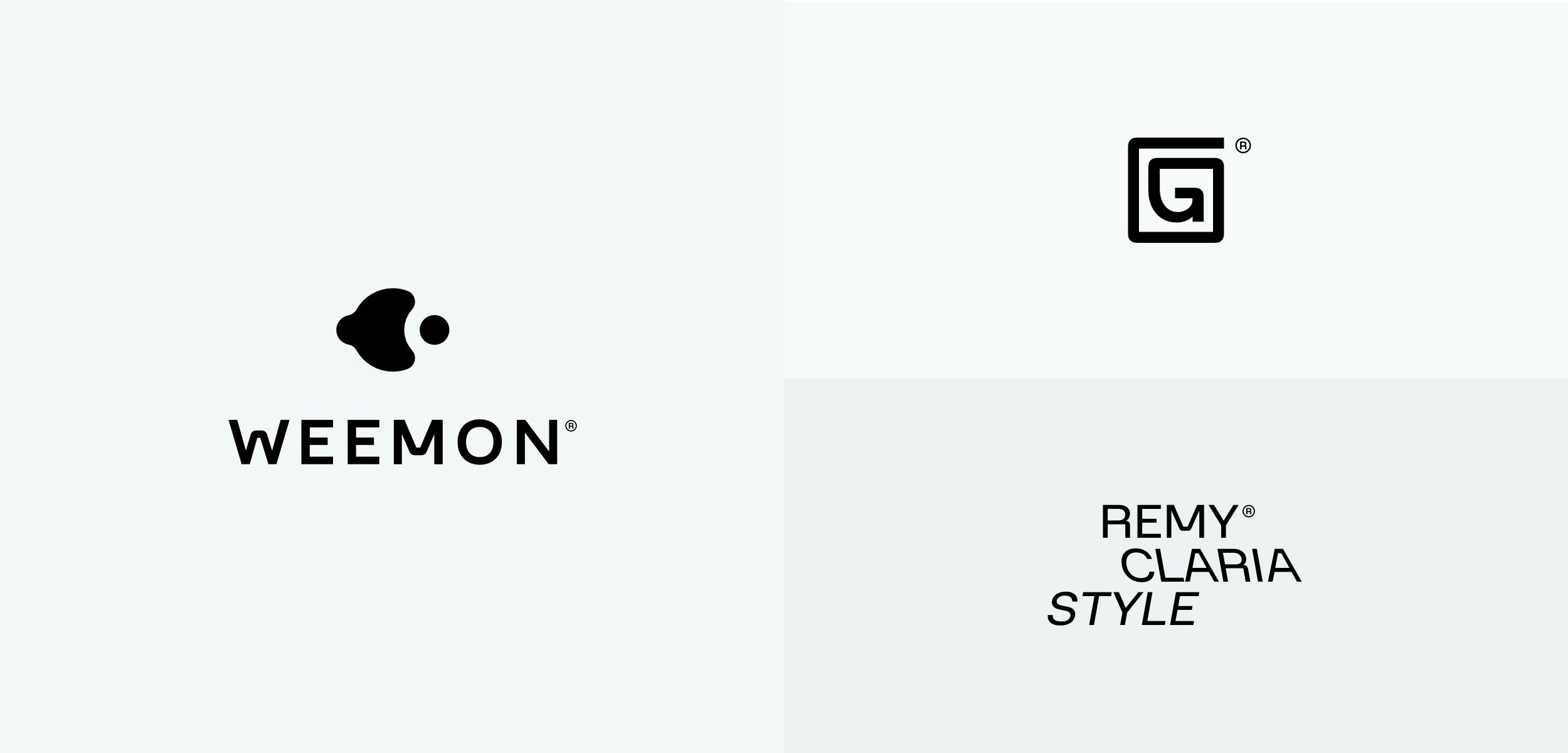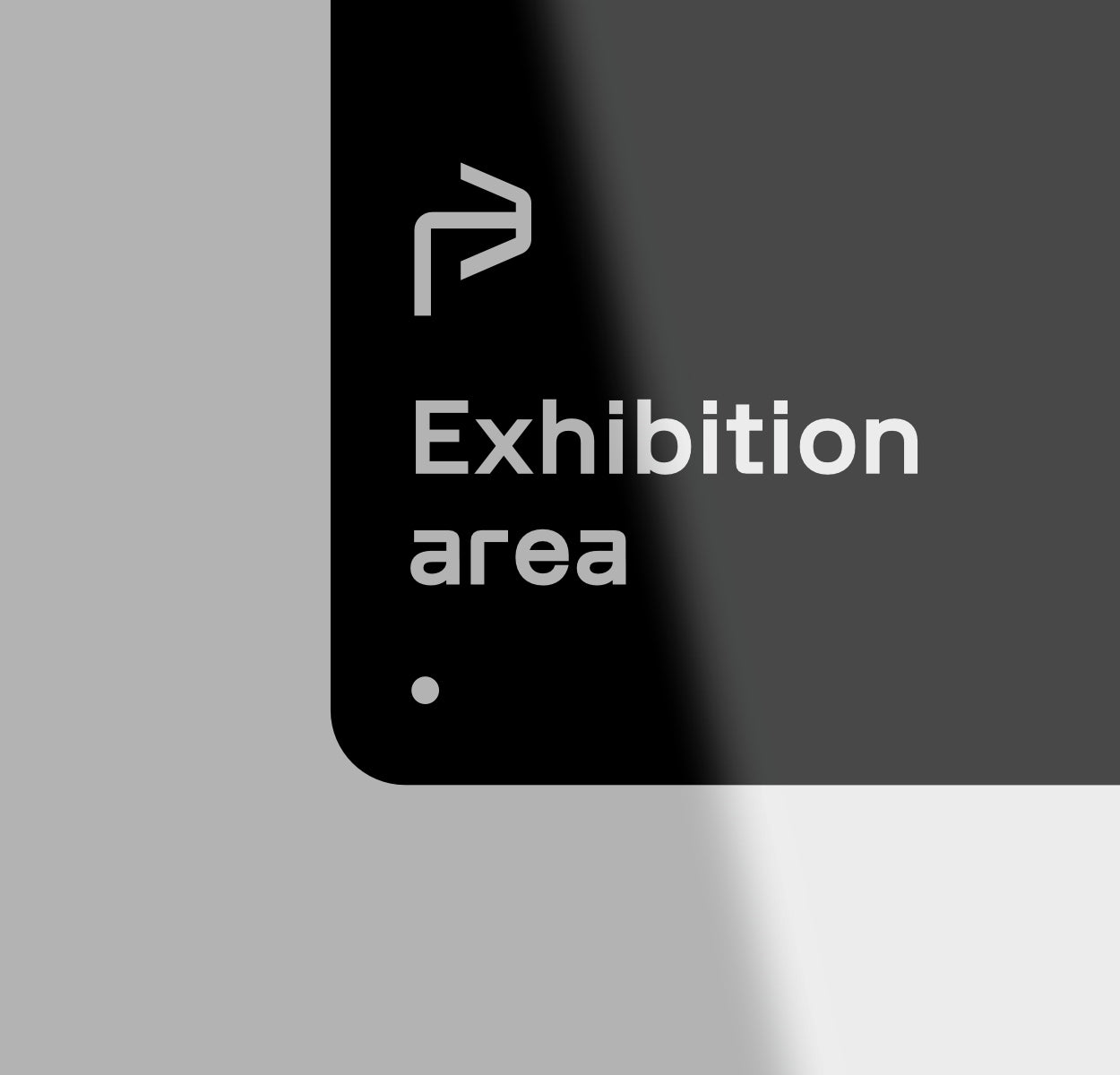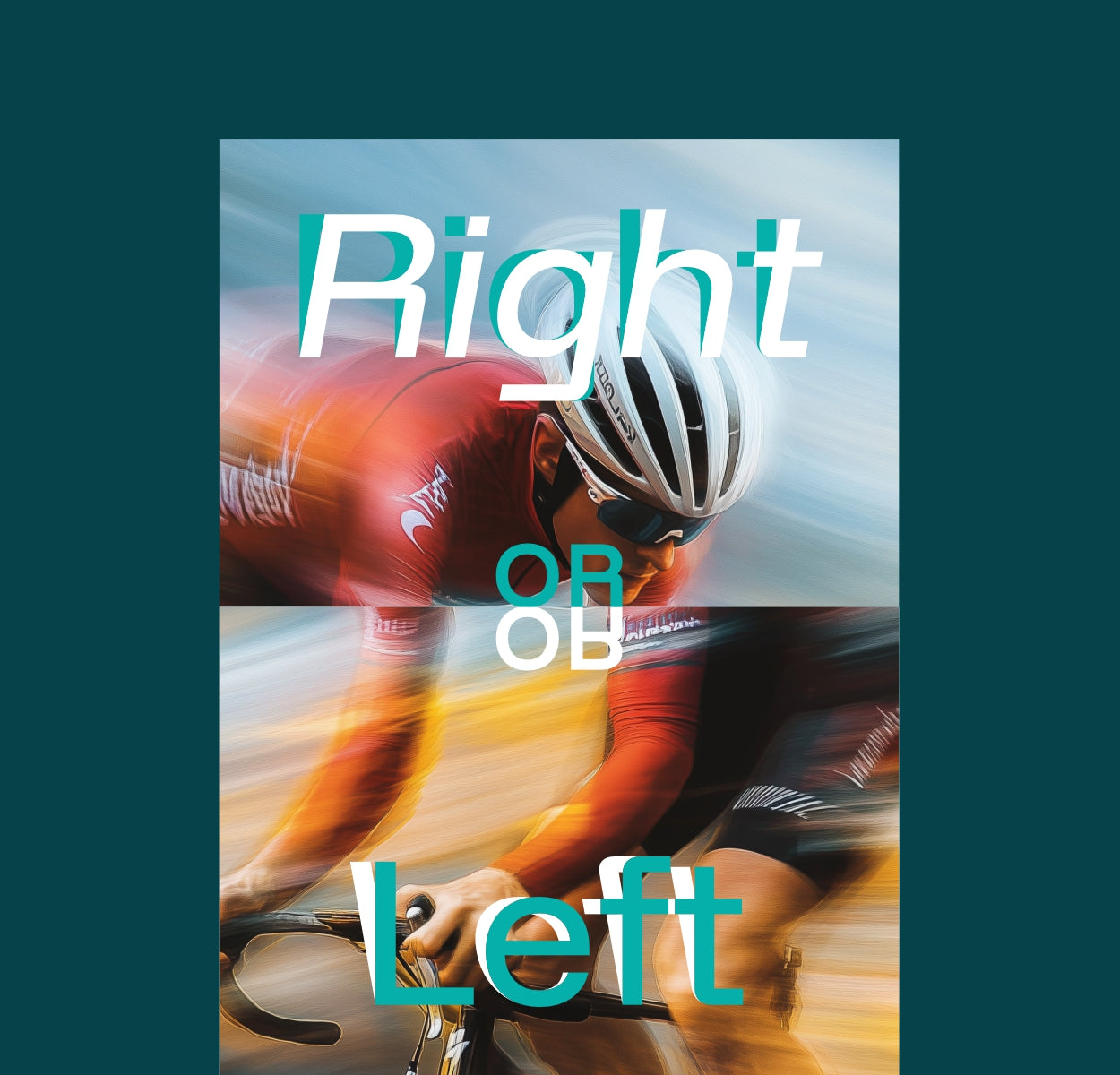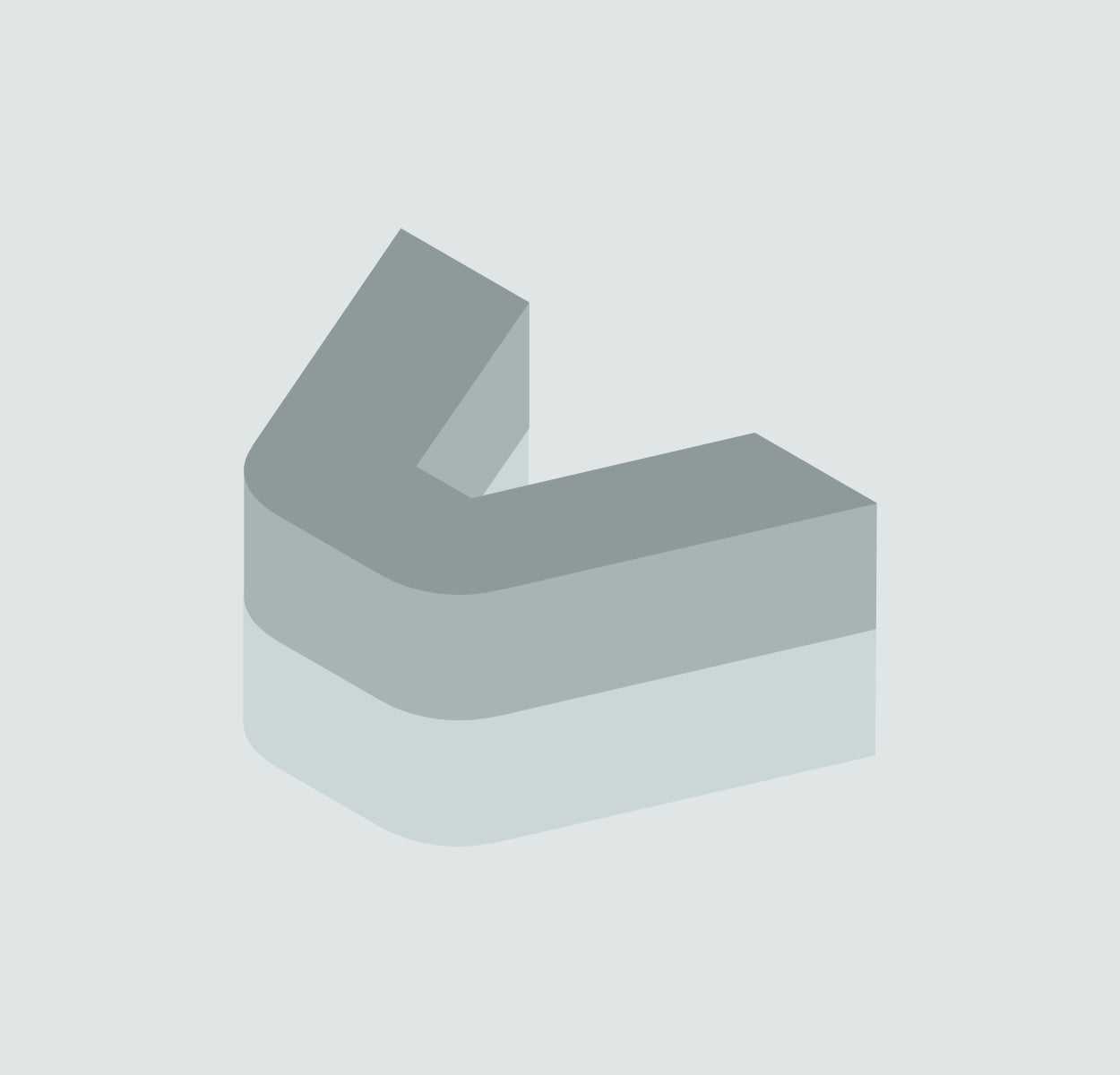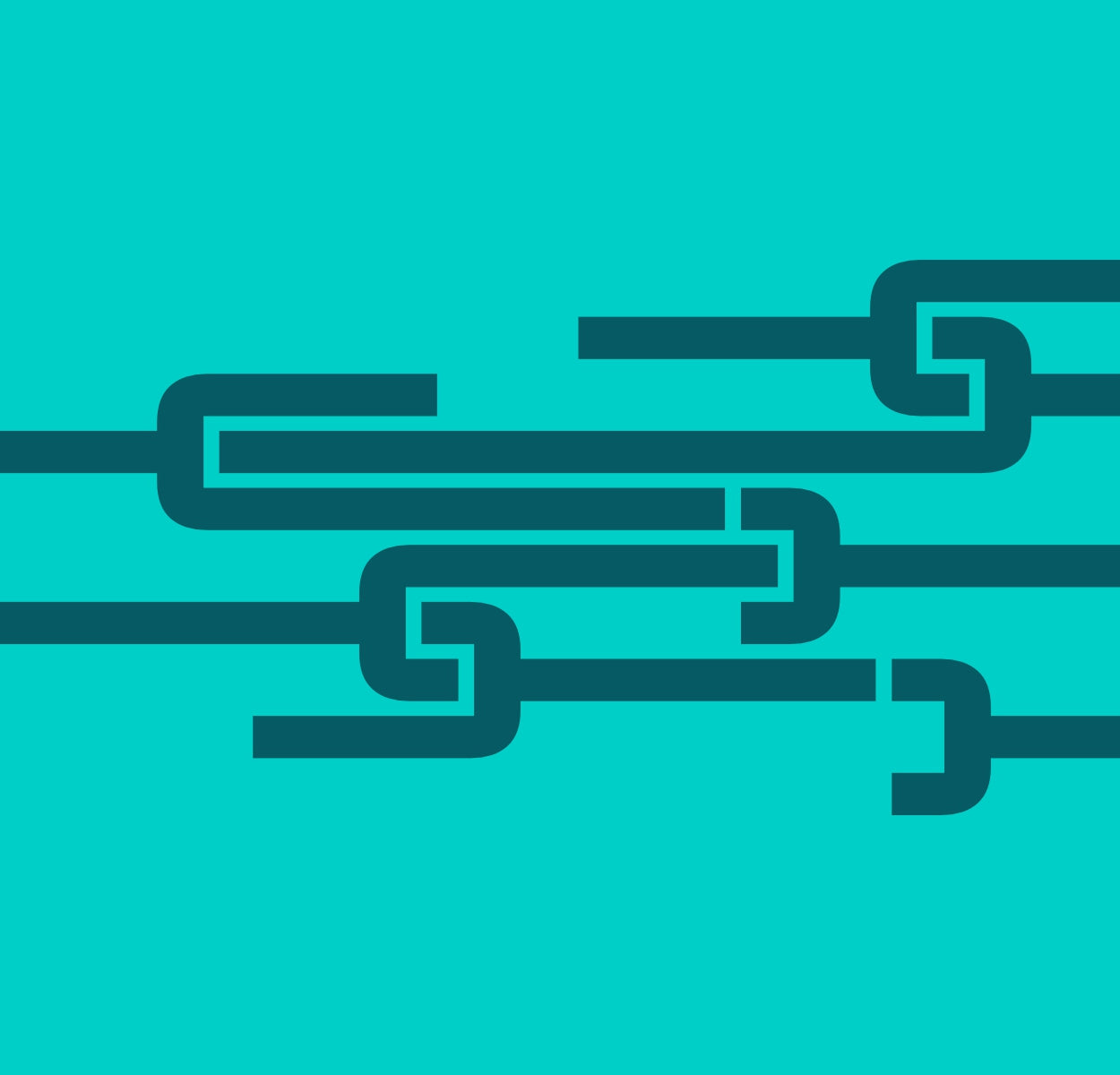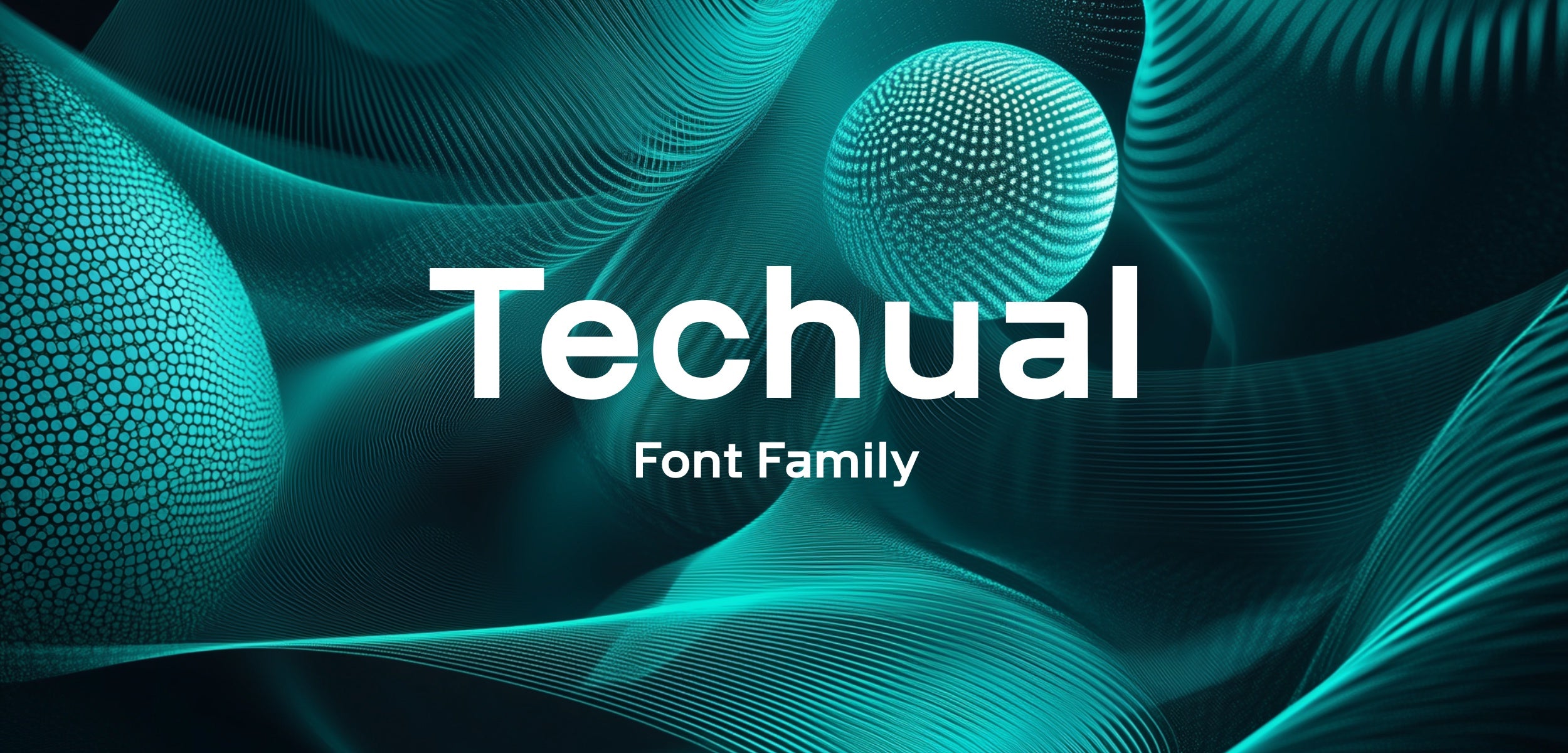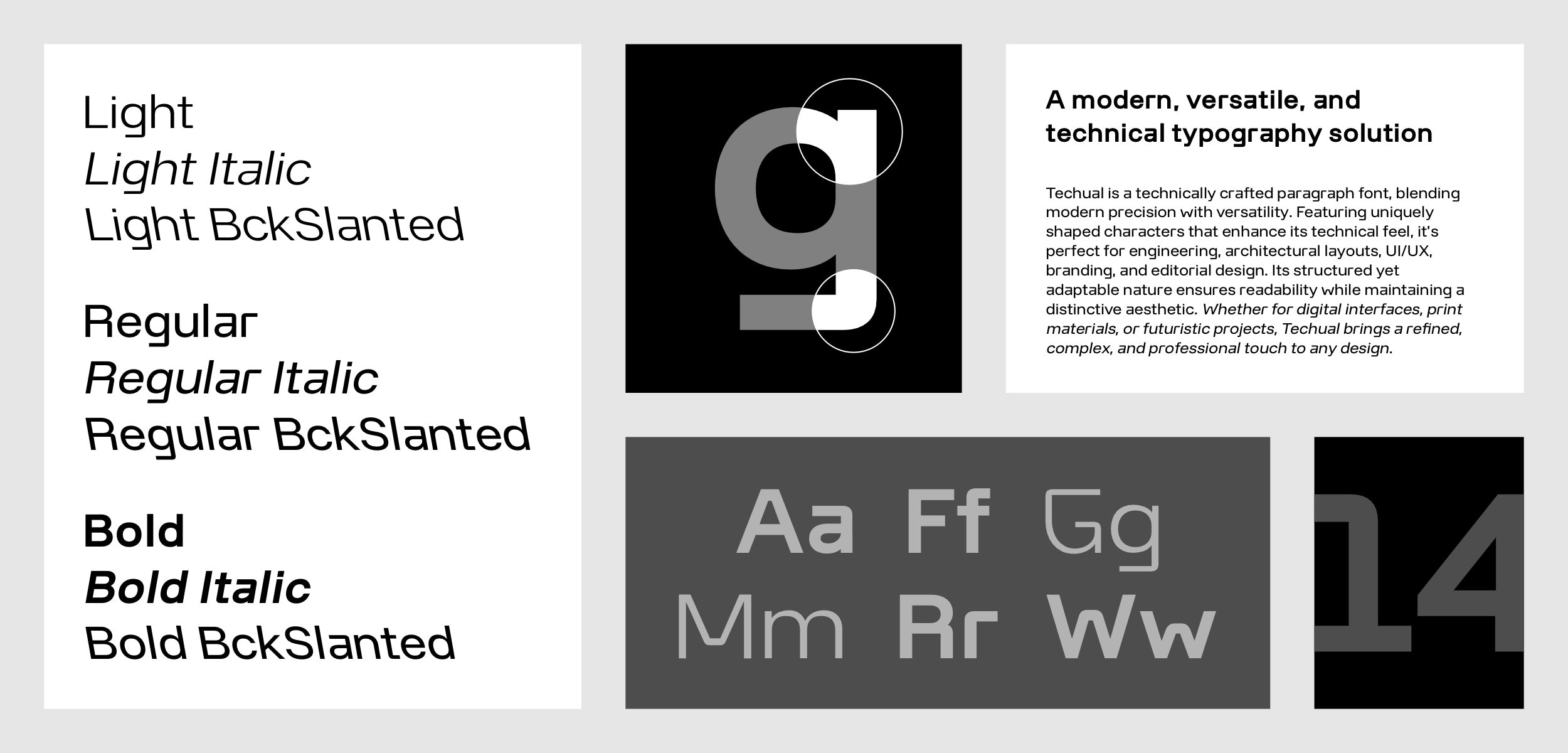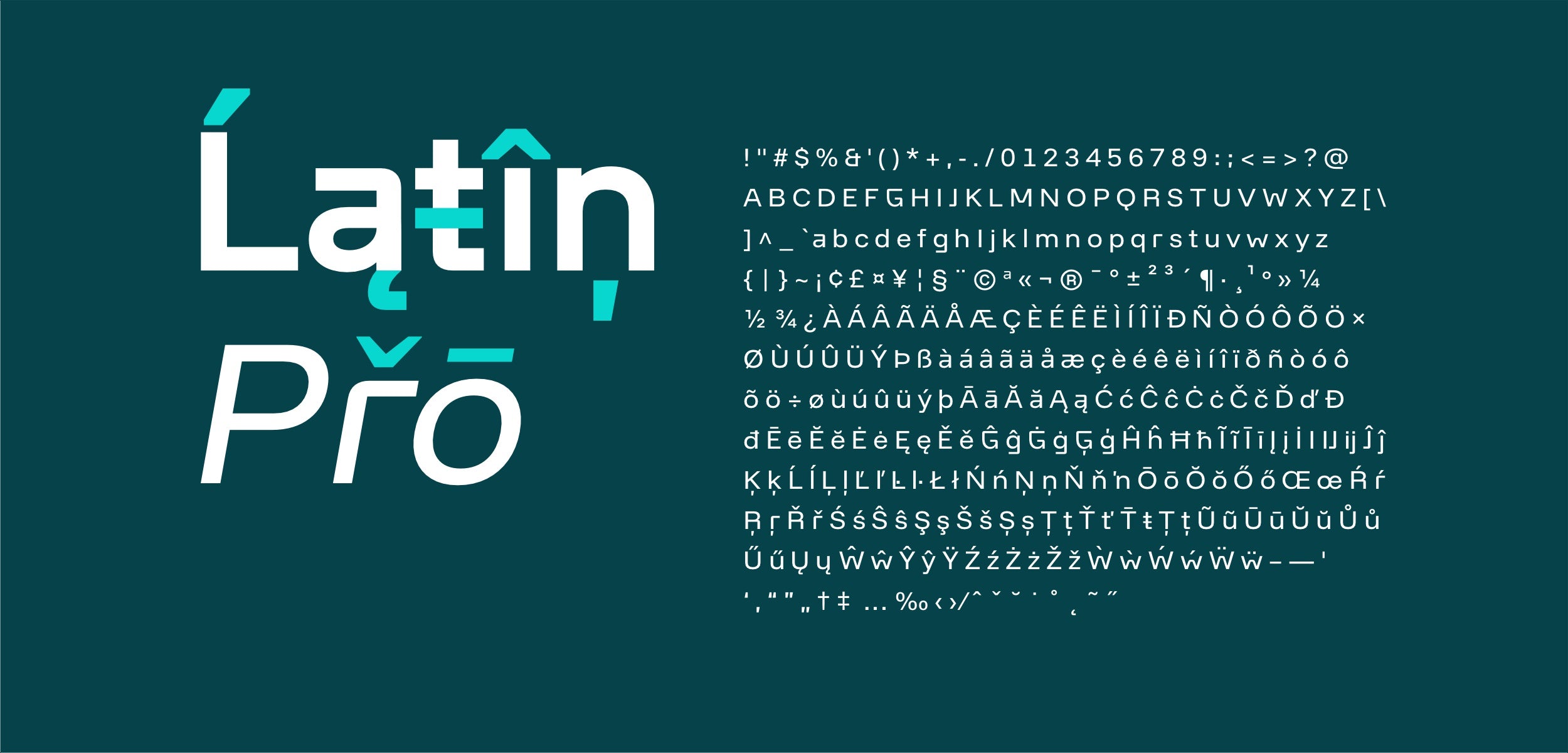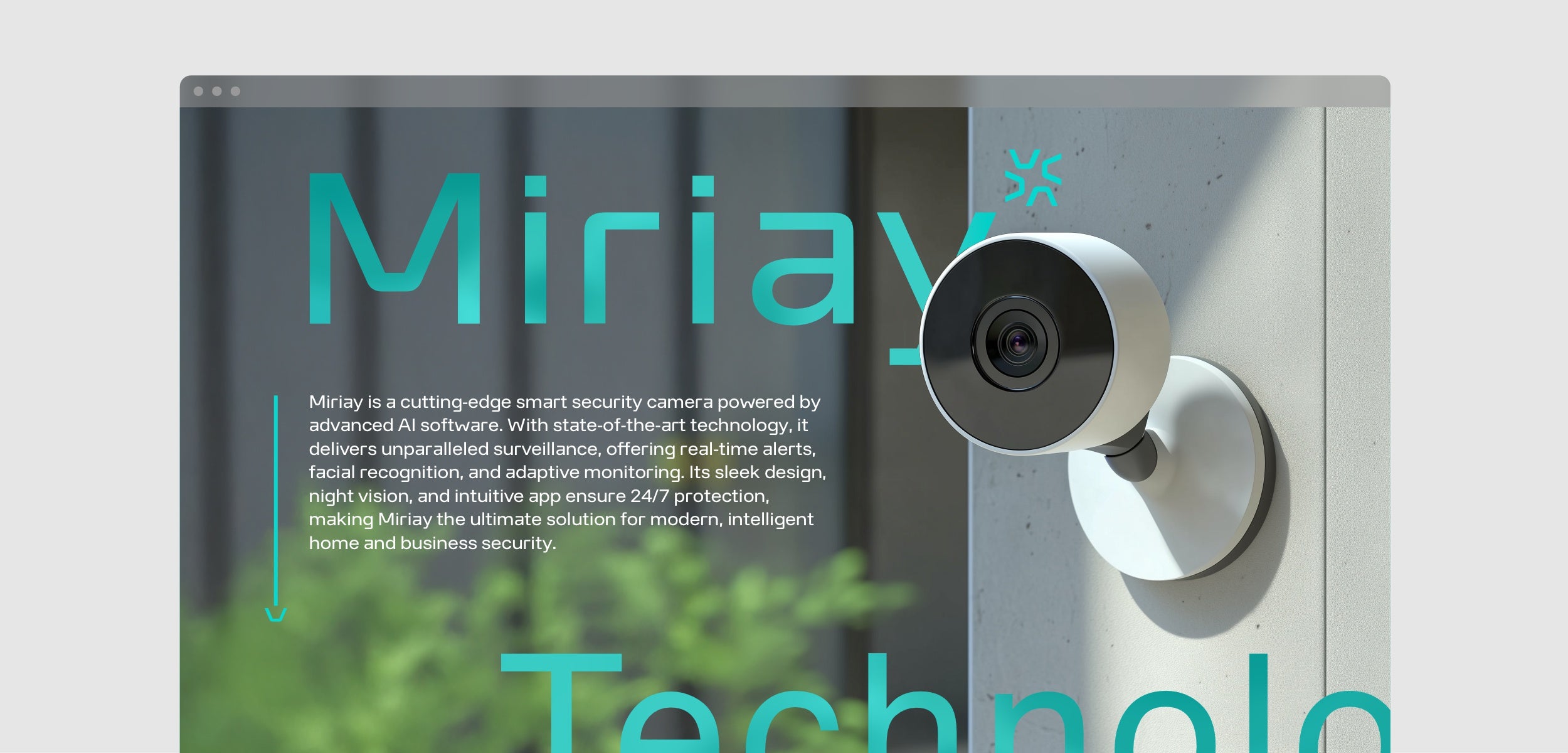
Use the segments of the font to create symbol plus wordmark structures for your brand identity projects.
Create bold wordmark logos using only the font characters.
Create symbols and logomarks using only font elements.
Techual’s geometric forms inspire architectural layouts, signage, and wayfinding systems. Its technical aesthetic integrates seamlessly into modern interior designs, offering precision, readability, and an industrial yet sophisticated visual identity.
Techual’s structured precision enhances print layouts, making technical documents, manuals, and branding materials clear, professional, and modern. Its unique character shapes add a distinctive, high-tech touch to typography-driven designs.
Techual’s modular character structure translates effortlessly into 3D, perfect for futuristic typography, engraved text, product design, and digital environments that require a precise, industrial, and modern aesthetic.
Techual’s uniquely shaped characters create intricate patterns, grids, and structural designs. Its modular elements allow for dynamic layouts, offering endless possibilities for abstract compositions, typographic patterns, and experimental design structures.
Techual’s geometric forms inspire architectural layouts, signage, and wayfinding systems. Its technical aesthetic integrates seamlessly into modern interior designs, offering precision, readability, and an industrial yet sophisticated visual identity.
Techual’s structured precision enhances print layouts, making technical documents, manuals, and branding materials clear, professional, and modern. Its unique character shapes add a distinctive, high-tech touch to typography-driven designs.
Techual’s modular character structure translates effortlessly into 3D, perfect for futuristic typography, engraved text, product design, and digital environments that require a precise, industrial, and modern aesthetic.
Techual’s uniquely shaped characters create intricate patterns, grids, and structural designs. Its modular elements allow for dynamic layouts, offering endless possibilities for abstract compositions, typographic patterns, and experimental design structures.